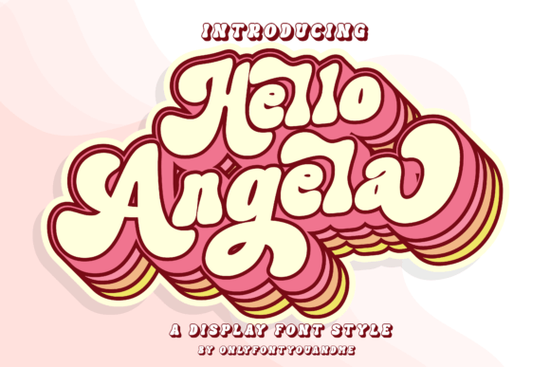
If you're looking for a display font that’s both cheerful and full of personality, the Hello Angela Font might be exactly what your next project needs. Designed with playful curves and friendly letterforms, it brings a lighthearted energy to headlines, logos, packaging, and more without sacrificing readability or style.
What makes Hello Angela especially handy is that it’s PUA (Private Use Area) encoded. That means all the extra glyphs, swashes, and alternate characters are easy to access through any design software that supports OpenType features no digging through character maps or guessing which symbol goes where. Whether you’re creating a boutique brand identity or designing custom greeting cards, those little flourishes can add just the right amount of charm.
When should you use Hello Angela?
This font shines in projects that call for warmth and approachability. Think:
- Children’s book titles or activity sheets
- Handmade product labels (think soaps, candles, or baked goods)
- Social media graphics for lifestyle or wellness brands
- Event invitations especially birthdays, baby showers, or casual gatherings
It’s not meant for body text or long paragraphs, but as a display font, it delivers instant visual appeal with minimal effort. Pair it with a clean sans-serif like Montserrat or a neutral serif for balance, and you’ve got a combo that feels both modern and inviting.
How does it compare to other playful display fonts?
If you’ve browsed Creative Fabrica’s collection, you’ve probably come across other fun options like Playful Children, which leans even more into youthful whimsy with bouncy letters and uneven baselines. Or maybe you’ve considered Brick Stacked, a bold, geometric choice great for urban or edgy themes.
Hello Angela sits comfortably between those extremes it’s friendly without being childish, stylish without being stiff. For retro-inspired projects, fonts like Picky Retro offer nostalgic flair, while Harlow Chunky gives you that 70s-modern vibe. And if you need something slightly more structured but still expressive, Jake Font provides a hand-lettered feel with consistent rhythm.
Each has its place but Hello Angela stands out when you want personality that doesn’t overwhelm.
Tips for getting the most out of Hello Angela
Because it includes alternates and decorative elements, take a few minutes to explore the font’s full character set before finalizing your design. In programs like Adobe Illustrator or Affinity Designer, you can open the Glyphs panel and scroll through available variants. Try swapping out standard letters for their swash versions in key words like the first or last letter of a headline to add subtle elegance.
Also, consider spacing. Display fonts often benefit from slight tracking adjustments. If your text feels too tight or too loose, nudge the letter-spacing by ±20–50 units until it looks balanced at your chosen size.
And remember: less is more. One well-placed word in Hello Angela can carry an entire design. You don’t need to use it everywhere just where you want a smile.
Who is this font best for?
Print-on-demand sellers will appreciate how Hello Angela translates beautifully to mugs, T-shirts, and tote bags especially for quotes, affirmations, or seasonal designs. Small business owners crafting their own branding (think coffee shops, florists, or yoga studios) can use it to convey warmth without hiring a designer. Crafters making SVG files for Cricut or Silhouette machines will find it easy to cut thanks to its clear outlines and connected strokes.
Even hobbyists creating personal projects like family photo albums or birthday banners will enjoy how quickly this font adds a professional touch.
With its blend of joy and versatility, Hello Angela isn’t just another pretty font it’s a practical tool for creators who want to communicate kindness, creativity, and care through their visuals.